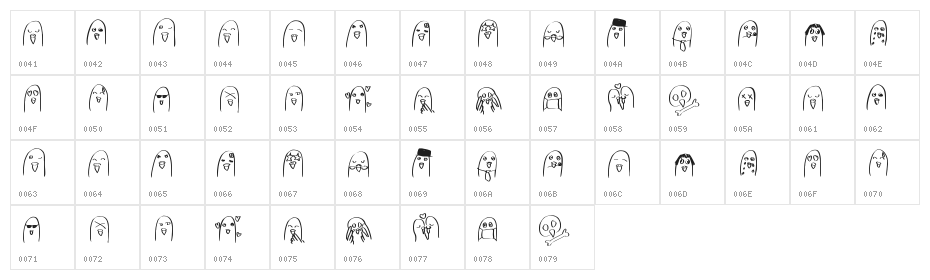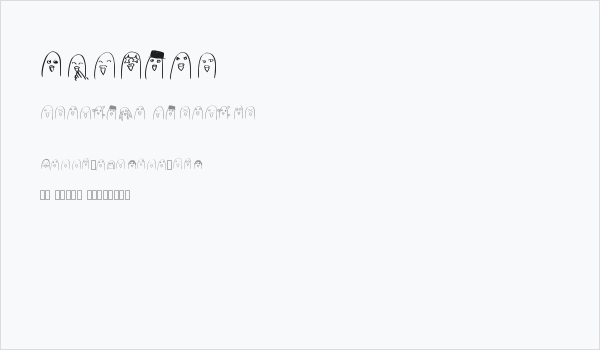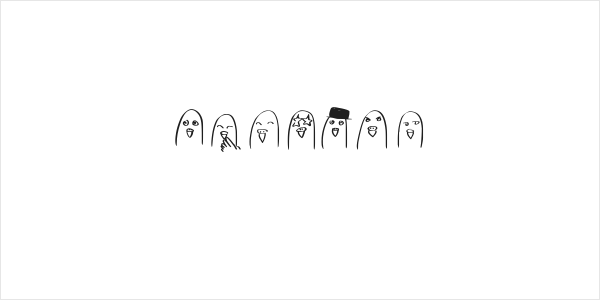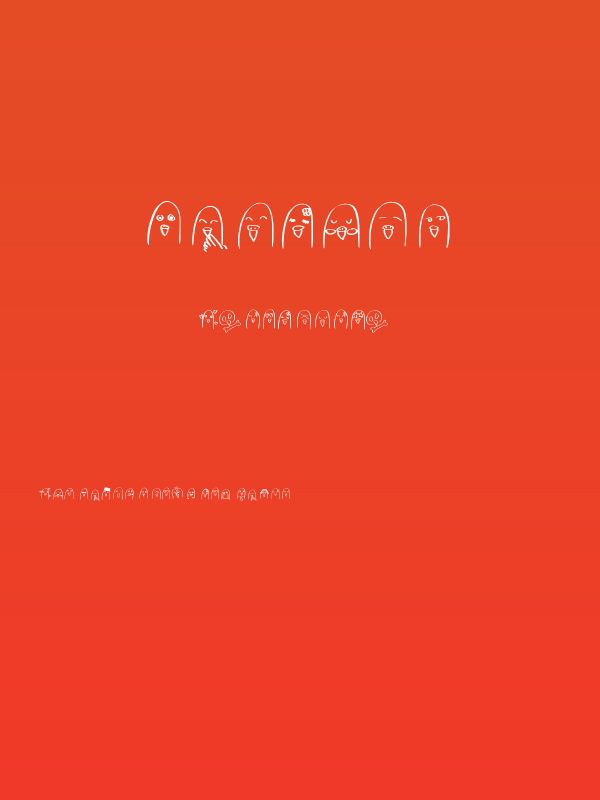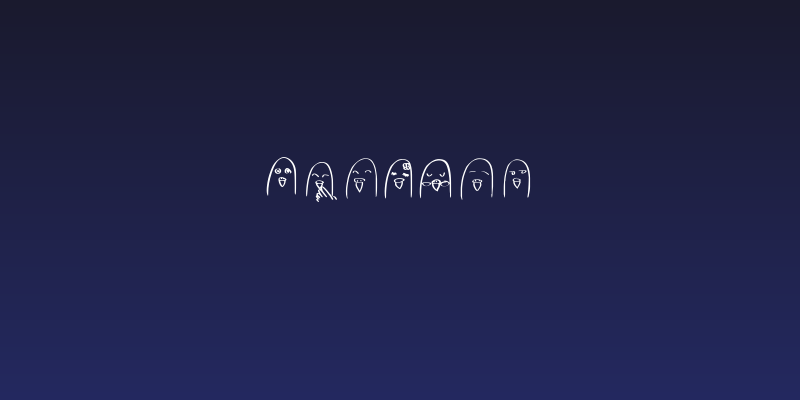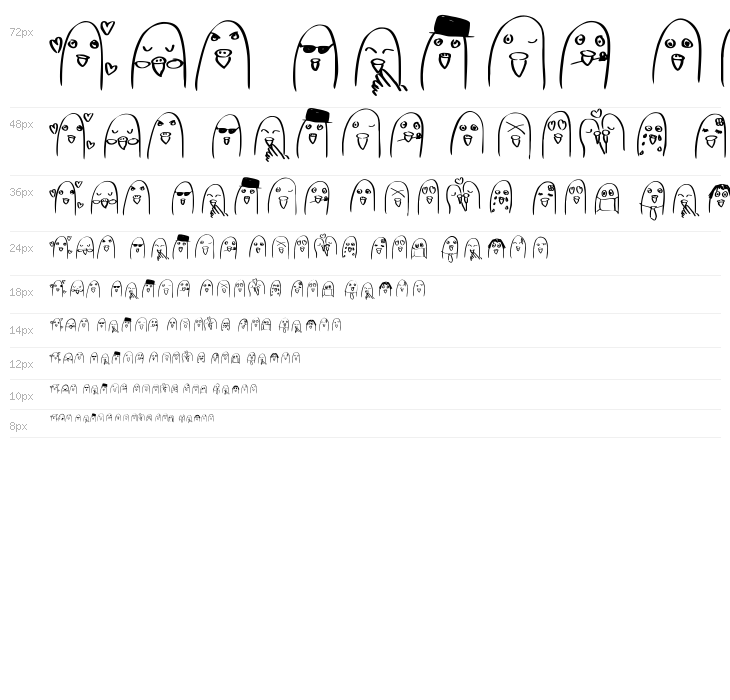
Budgies Font
Budgies Description
A playful, hand-drawn decorative font featuring simple cartoon budgie faces with various expressions and accessories, each character uniquely illustrated to convey emotion and whimsy.
Overall StylePlayful, Whimsical, Decorative
Use CaseLogos, Headlines, Posters, ChildrenÒ€ℒs content
Proposed ProjectsChildrenÒ€ℒs books, greeting cards, playful branding, stickers, educational materials, social media graphics.